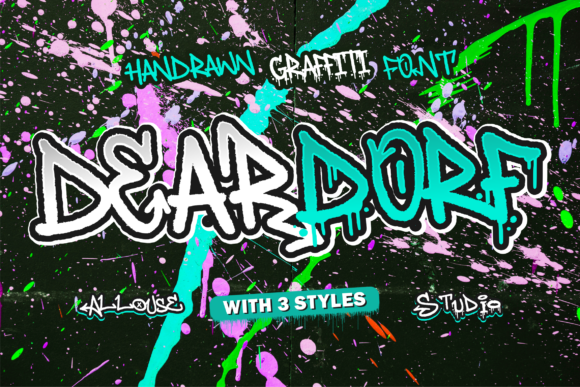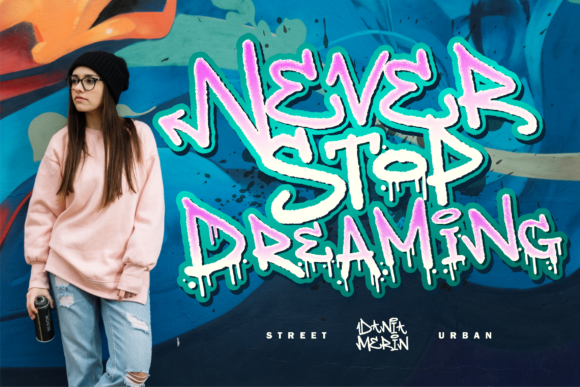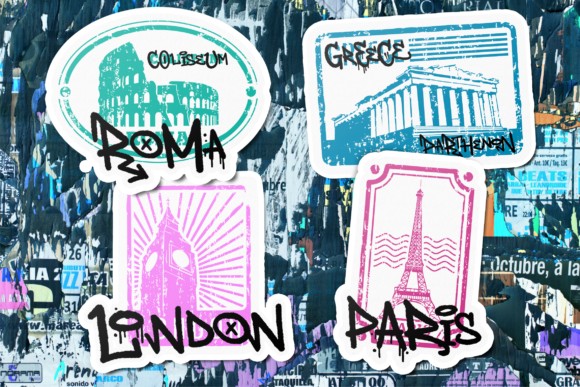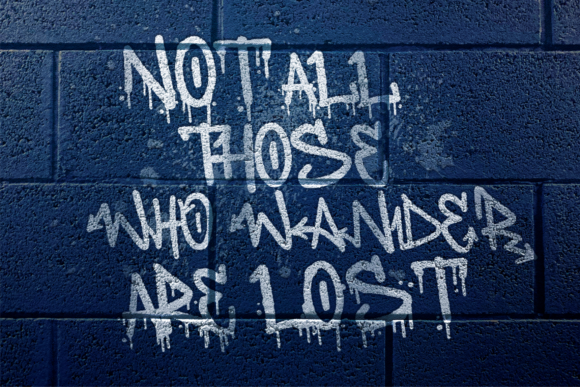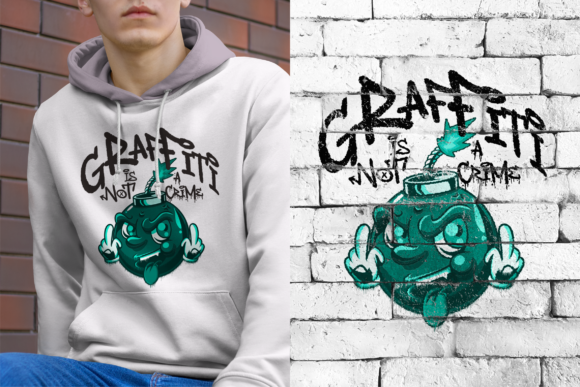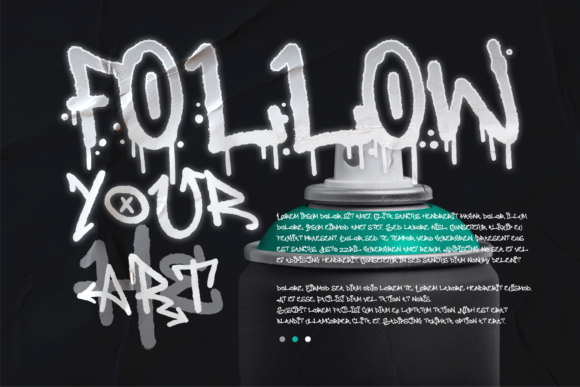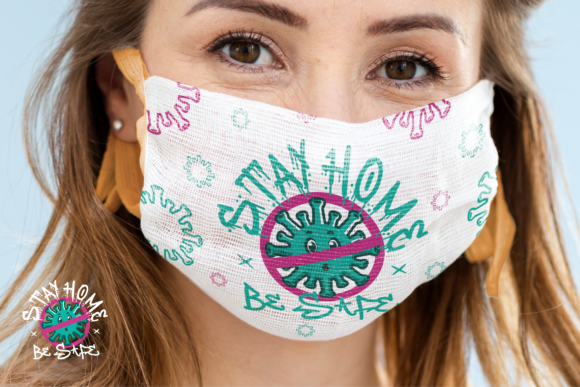
The Perfect Typography for Your Next Masterpiece
Have you ever been working on a project, pouring your heart and soul into it, and suddenly, you need that one thing to make it truly stand out? That one element that elevates your creation from good to great? For designers, this moment is a familiar sensation, and it’s exactly where the Deardorf Font comes in.
This cool, urban styled display font is expertly designed to make your creations look out of this world. Whether you’re working on a futuristic concept, a cityscape, or anything in between, the Deardorf Font will add a touch of sophistication and style to your design. Its versatility makes it a valuable asset for any designer looking to take their work to the next level.
Deardorf Font Key Features
- Unique Characteristics: Deardorf Font features a distinctive, handwritten style with subtle imperfections, giving it a personal and authentic feel. The font includes a wide range of ligatures, swashes, and flourishes to enhance its expressive capabilities.
- Font Style: The font comes in multiple weights, including Light, Regular, Medium, Bold, and Black, allowing designers to choose the perfect style to suit their project’s tone and aesthetic.
Deardorf Font Review
Overall, the Deardorf font has its moments, but it’s not without its flaws.
- Unique Design: The Deardorf font has a distinctive, modern aesthetic that sets it apart from more common sans-serif fonts.
- Legibility: At larger font sizes, the font is clear and easy to read, making it suitable for body text or titles.
- Scalability: The font scales well across different sizes, from headings to small body text.
- Character Limitations: The font lacks some basic characters, such as certain punctuation marks and symbols, which can be inconvenient for users who need to type in multiple languages.
- Readability at Small Sizes: At very small font sizes, the font can become difficult to read due to the subtle details and irregularities in the letterforms.
- Lack of Variations: The font comes in only a few weights, which may limit its versatility and make it less suitable for complex designs.
Overall, I’d give the Deardorf font 3 out of 5 stars. While it has its strengths, its limitations hold it back from being a top choice for designers. However, it can still be a useful addition to your font library for specific projects where its unique design is a good fit.
Deardorf Font: A Practical Application Guide
Tips for Getting the Most Out of Deardorf Font
Use the Deardorf Font in conjunction with other elegant fonts to create a sophisticated design. Experiment with different font sizes and styles to add visual interest. Use the font in headings and titles to create a clear hierarchy of information.
The Deardorf Font is ideal for designing wedding invitations, business cards, and other formal documents. It is also suitable for creating elegant digital products, such as ebooks and presentations. Use the font to add a touch of sophistication to your designs.
What is the recommended font size for Deardorf?
The recommended font size for Deardorf is between 12pt and 24pt. This will ensure optimal readability and legibility. However, feel free to experiment with different font sizes to achieve the desired visual effect.